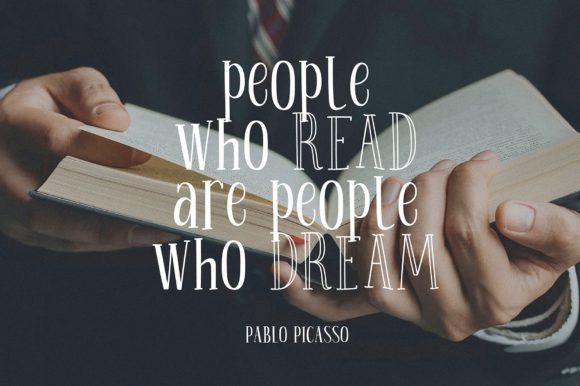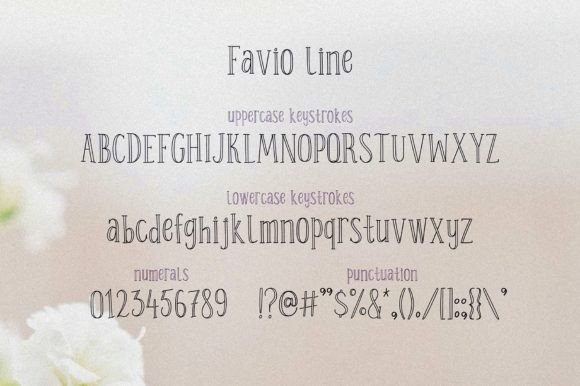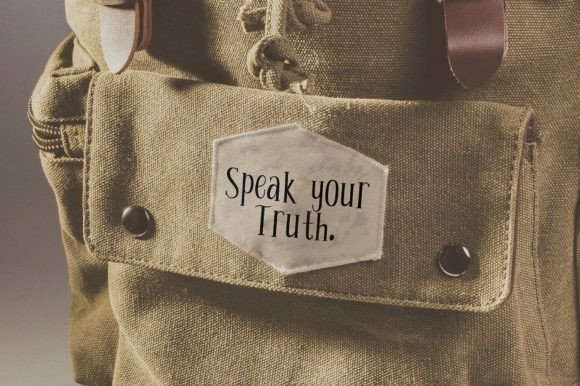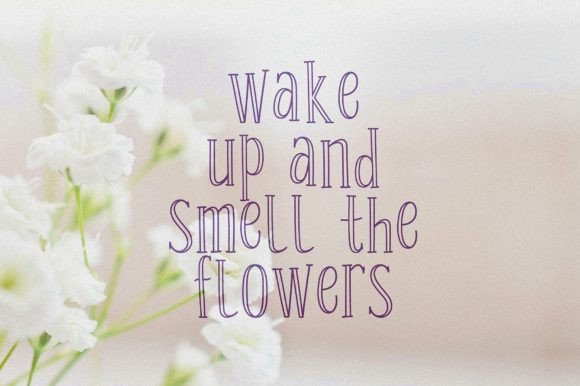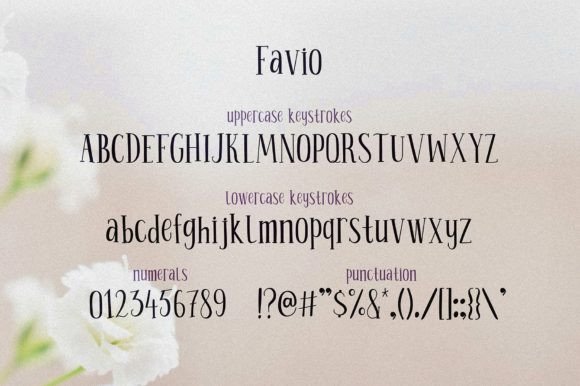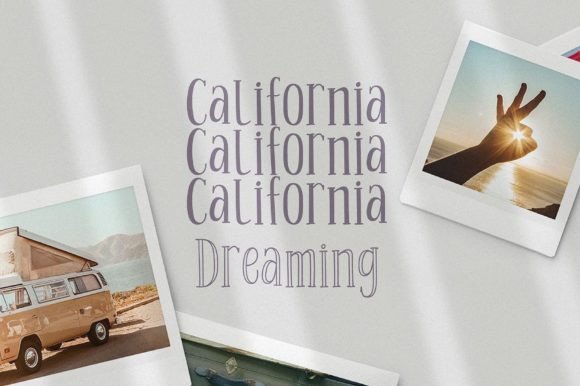
Unleashing the Magic of Favio Font
As designers, we’ve all been there – stuck in a creative rut, searching for that perfect font to elevate our project. It’s like trying to find a needle in a haystack, until suddenly, you stumble upon a hidden gem that changes everything. For many of us, that moment came when we discovered Favio Font, an elegant and playful serif font duo that brings ancient charm to modern designs.
With its versatility and harmonious feel, Favio Font is the perfect companion for any creative project. Whether you’re designing a minimalist logo, a wedding invitation, or a children’s book, this font is guaranteed to add an individual touch and make your text stand out. Its bold and attractive look makes it a valuable asset for designers, and its endless possibilities for customization will keep you inspired for hours.
Favio Font Key Features
- Font Family: Favio Font is a sans-serif font family designed for digital use.
- Unique Characteristics: Favio Font features a clean and modern design, with a distinctive x-height and a subtle rounded edge to the letterforms.
Favio Font Review
Favio Font is an interesting addition to any typography collection, offering a unique blend of modern and vintage styles. ✨ Its clean lines, geometric shapes, and subtle curves make it suitable for a wide range of applications, from headlines to body text.
- ✨ The font’s versatility is one of its strongest assets. It can be used in various contexts, from digital interfaces to print materials.
- ✨ The font’s x-height is well-balanced, making it easy to read, even at smaller font sizes.
- ✨ Favio Font’s weight distribution is smooth, with a clear distinction between light and bold variations.
- ⚠️ While Favio Font is suitable for most applications, it may not be the best choice for complex text-based materials, such as novels or technical documents.
- ⚠️ The font’s uniqueness may not be for everyone’s taste, and some users may find it too playful or attention-seeking.
In conclusion, Favio Font is a solid addition to any typography collection, offering a unique blend of style and functionality. While it may not be perfect for every application, it’s definitely worth considering for projects that require a touch of personality and flair.
Common Use Cases and Tips
Favio Font is ideal for use in logos, headings, and titles. To get the most out of it, experiment with different font sizes, colors, and styles to create a unique visual identity.
Remember to pair Favio Font with other complementary fonts to create a harmonious design. You can also use it in combination with images and graphics to create visually appealing designs.